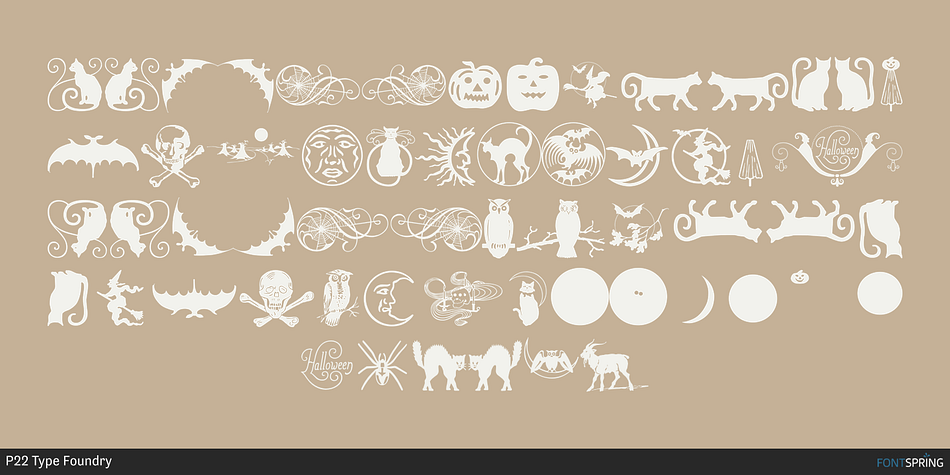
LTC Halloween Ornaments Regular
Designed by Paul Hunt, LTC Halloween Ornaments is a dingbat font published by P22 Type Foundry.
Halloween is a time when perfectly reasonable people choose to reenact some lost pagan rituals. No one seems to know why exactly, but Halloween has been celebrated in its present form for a little over one hundred years. This set of ornaments dates back to the early 20th century and depicts a “classic” Halloween collection of black cats, pumpkins, witches and other indispensable Halloween ornaments.
Foundry P22 Type Foundry
Designer Paul Hunt